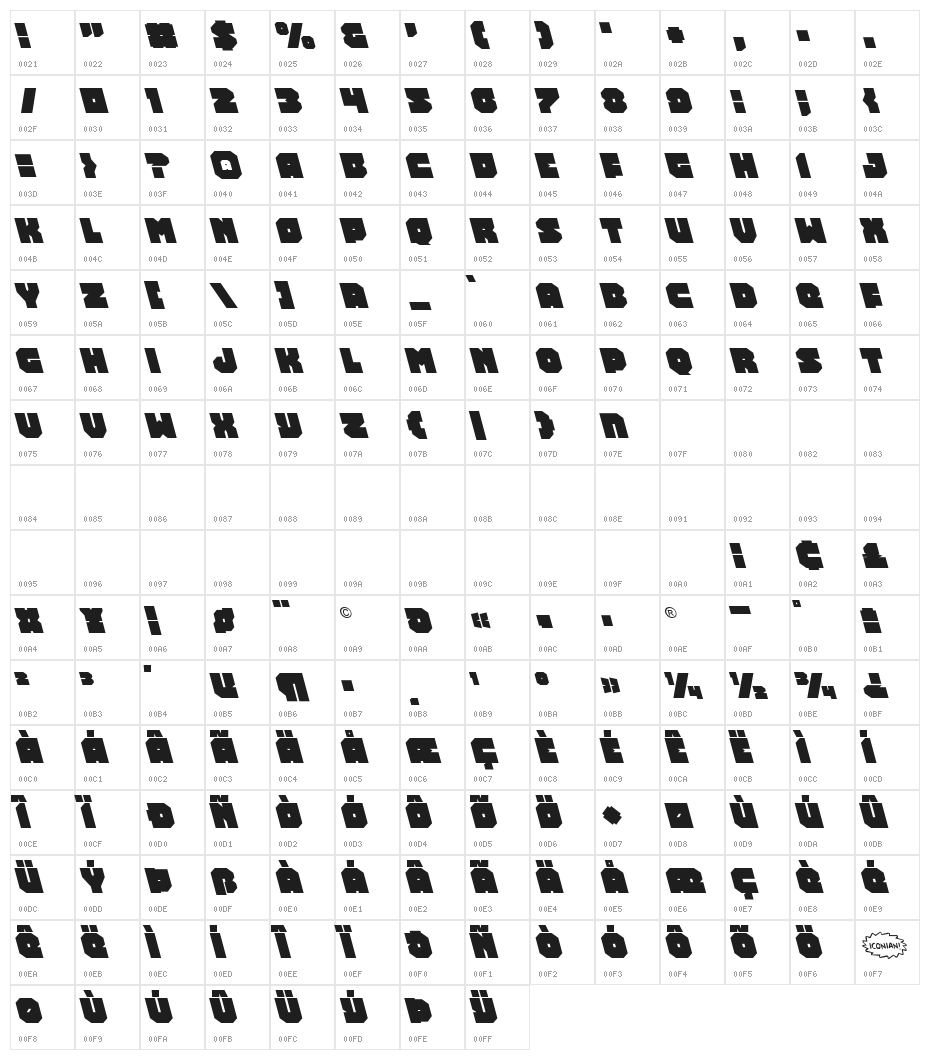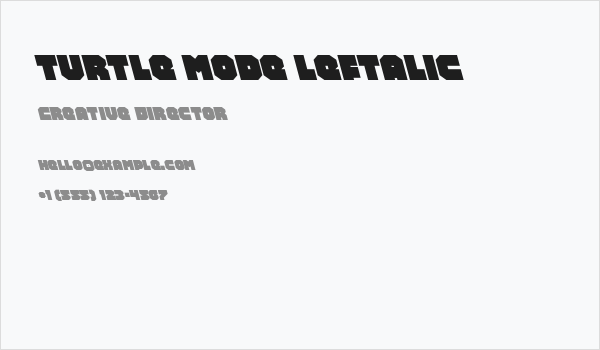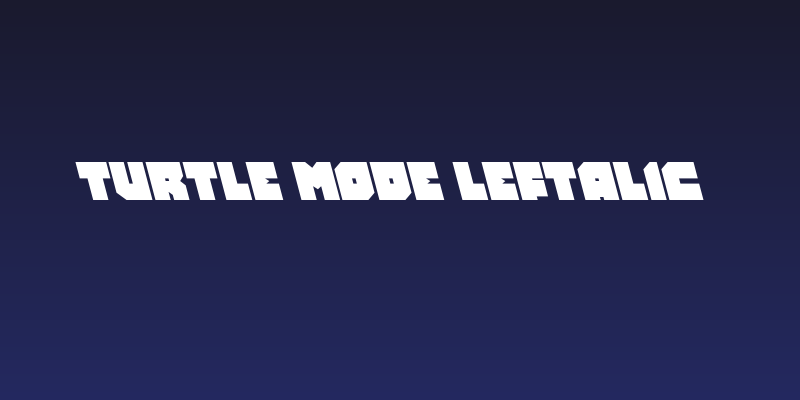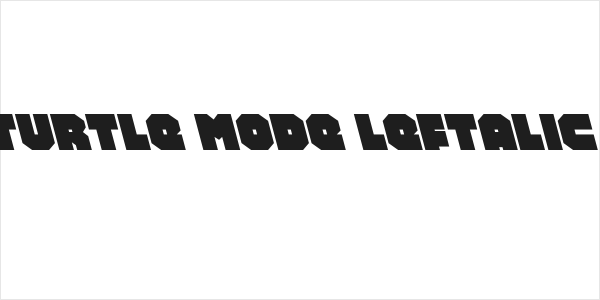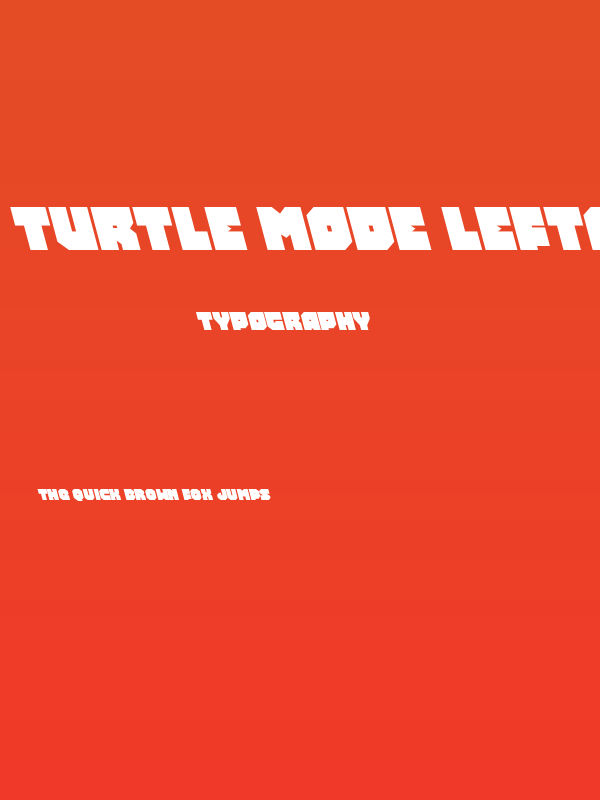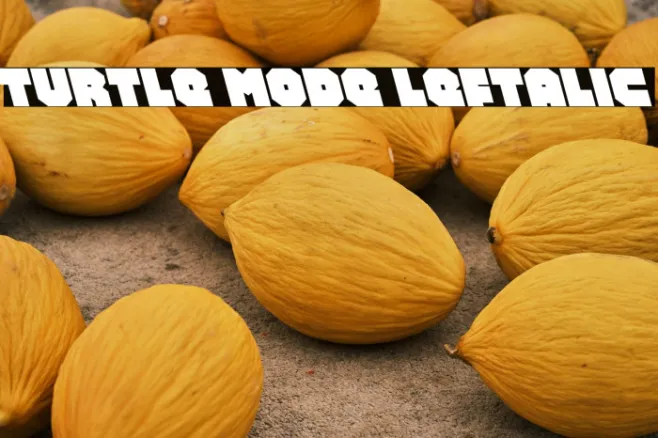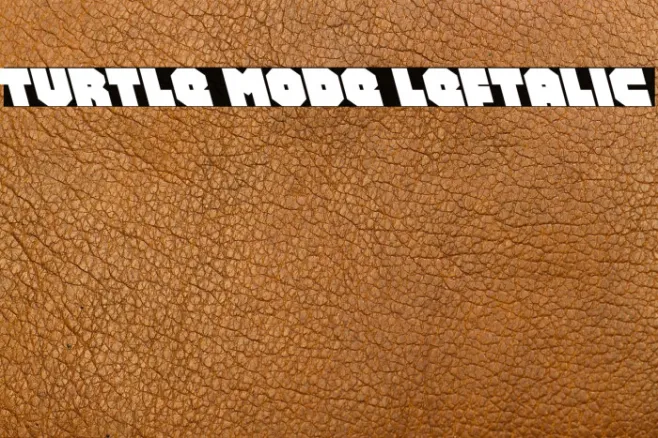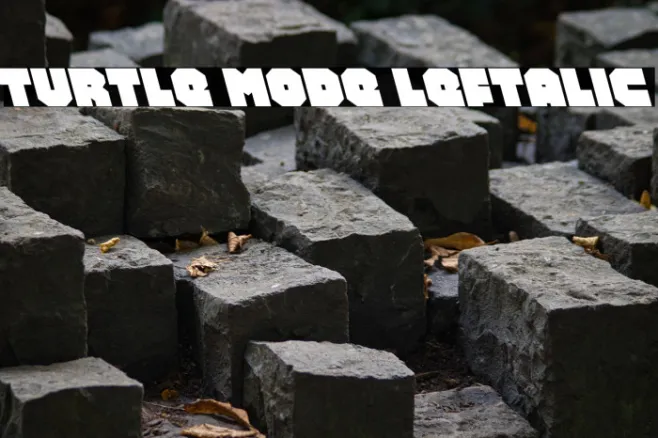
Turtle Mode Leftalic Font
Turtle Mode Leftalic Description
This font features a bold, geometric design with a strong presence. The characters are constructed with sharp angles and a blocky appearance, giving it a futuristic and industrial feel. The uppercase and lowercase letters maintain a consistent style, with the lowercase slightly smaller but equally bold. Numbers and special characters follow the same design principles, ensuring uniformity across all glyphs. The font's unique style makes it stand out, suitable for projects that require a modern and edgy look.
| Proposed Projects | Ideal for video game titles, tech branding, posters, and any project needing a modern, bold aesthetic. |